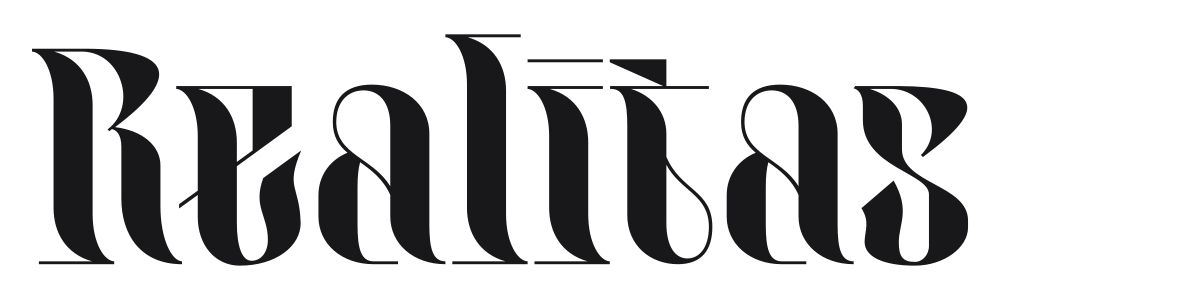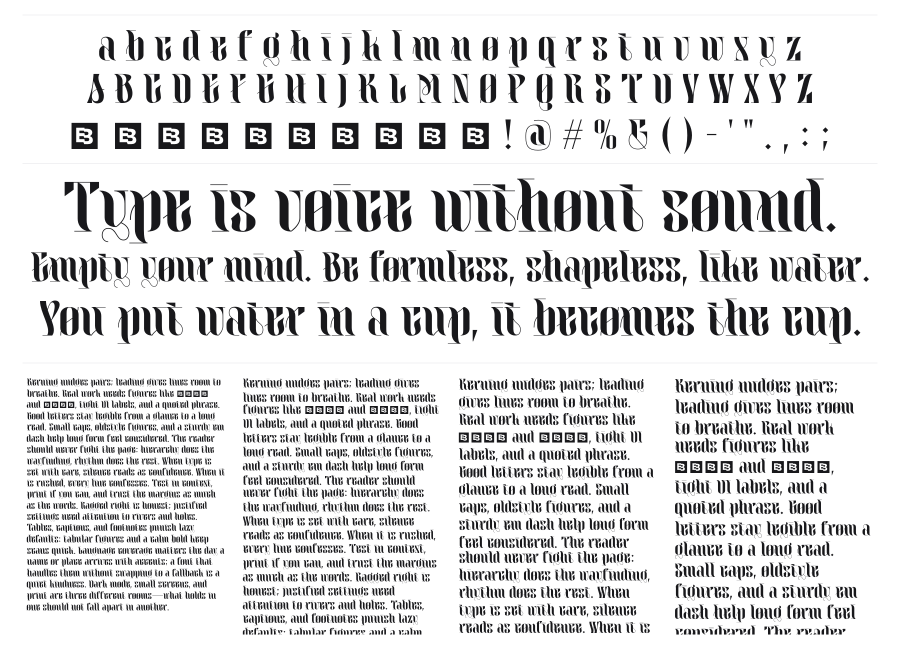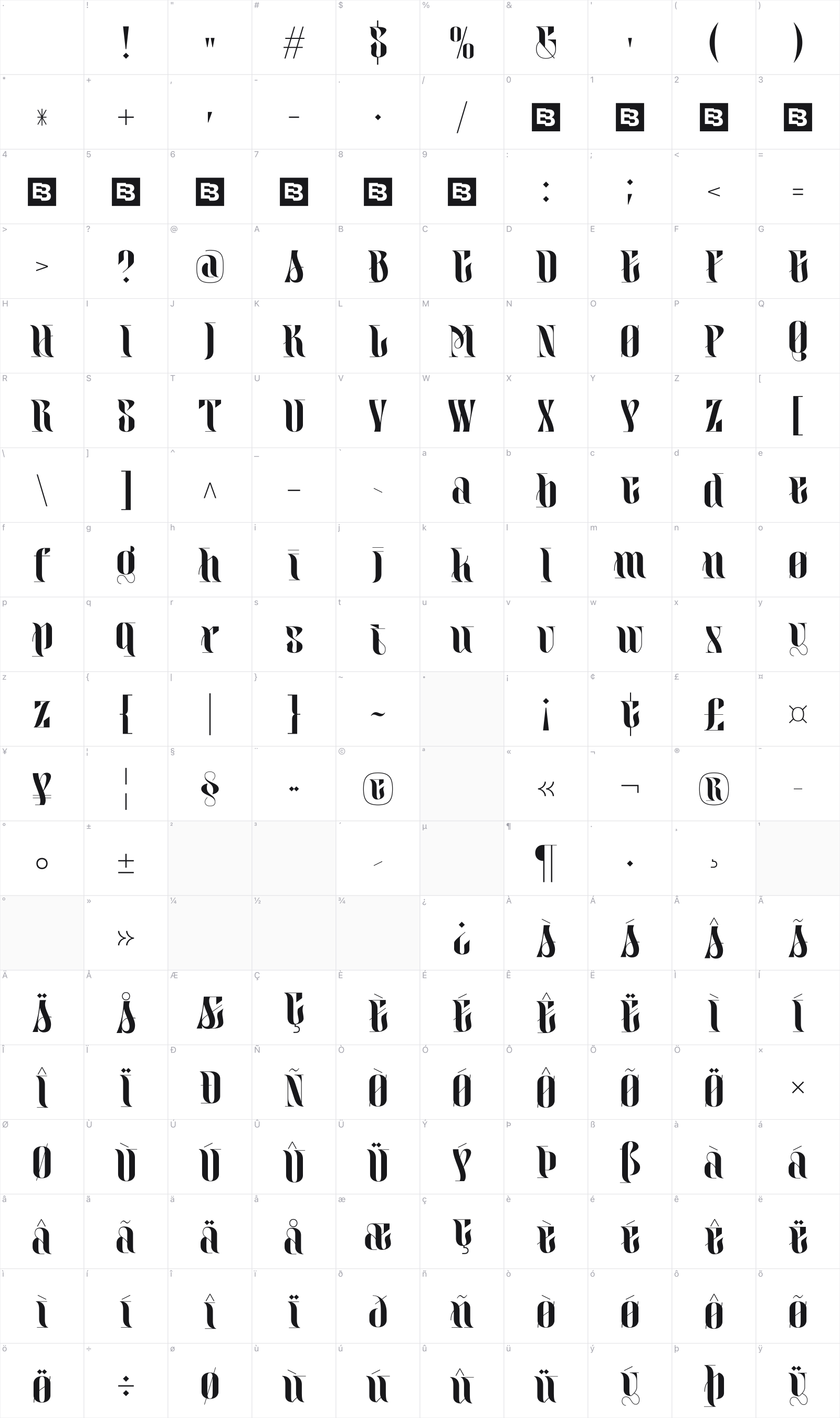
Realitas
by Eko Bimantara
Realitas is a condensed gothic blackletter with extreme stroke contrast and sharp angular architecture. The tall compressed characters pull influence from medieval gothic scripts while leaning into a modern high-fashion aesthetic. Strong at large display sizes for editorial spreads, album covers, and luxury branding.